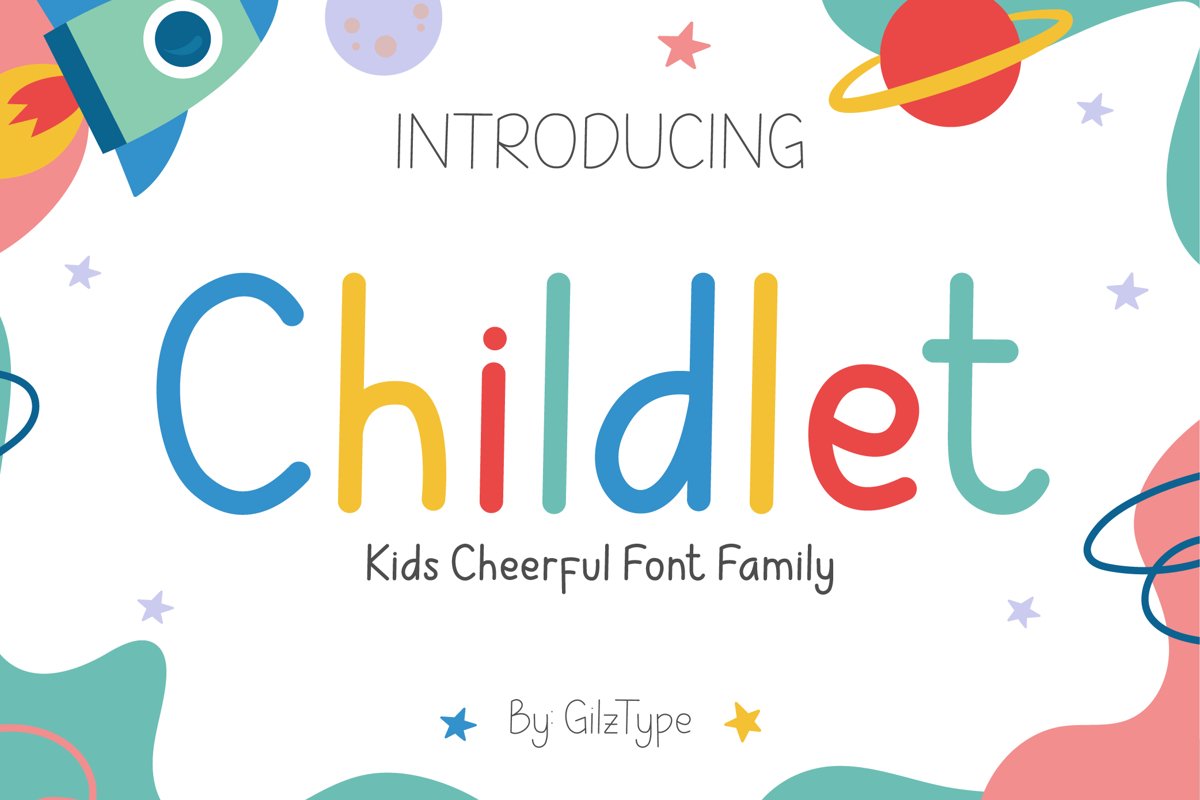
Childlet - Kids Cheerful Font Family
Introducing Childlet - Kids Cheerful Font Family, that comes in a Light, Regular & Bold version
This font is perfect for design of children's product,  children book, kid's magazine, invitation, poster, sticker, wallpaper, t-shirt, jacket, postcard, label, and much more!